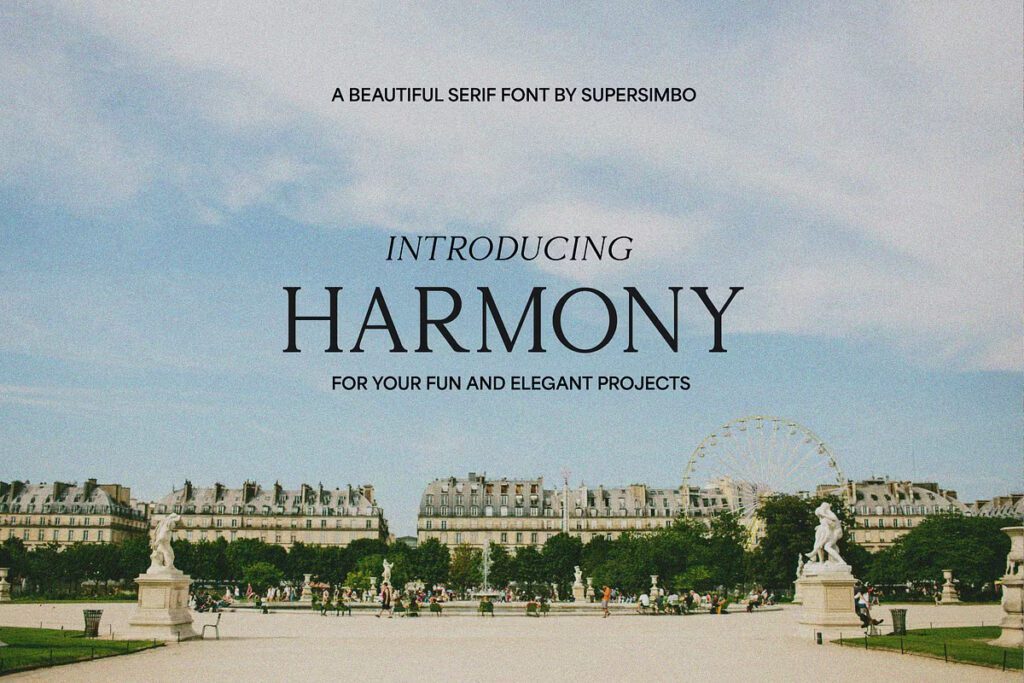
Harmony: A Beautiful Serif Font for Your Creative Projects
Introducing Harmony, a stunning serif font that brings both elegance and versatility to any design. Whether you’re aiming for a classic, Parisian vibe or a touch of retro charm, Harmony delivers a perfect balance of sophistication and fun. Available in both regular and italic styles, this font is designed to enhance your creative endeavors, bringing a sense of harmony and love to your projects.
Why Choose Harmony?
Harmony is a serif font that stands out for its stylish yet understated design, making it perfect for a variety of uses, including:
Elegant Branding: Ideal for creating luxurious and professional branding materials.
Retro Aesthetic: Infuse a hint of nostalgia with Harmony’s retro influence, adding character and depth to your designs.
Versatility: Whether it’s editorial design, logos, or invitations, Harmony adapts beautifully to any project.
Features of Harmony:
Elegant Design: Harmony’s serif structure gives it a refined and polished appearance, perfect for brands seeking a high-end look.
Retro Influence: Its subtle retro vibe adds a layer of charm, making your designs stand out while remaining timeless.
Two Styles: With both regular and italic options, you have the flexibility to create harmonious typography that suits a wide range of creative applications.
Perfect For:
Branding and Logos: Establish an elegant, sophisticated look for your brand with Harmony’s clean and stylish serif design.
Editorial Projects: Whether you’re designing a magazine, blog, or publication, Harmony offers readability with a touch of class.
Invitations & Stationery: Elevate your wedding invitations or personal stationery with Harmony’s elegant curves and clean lines.